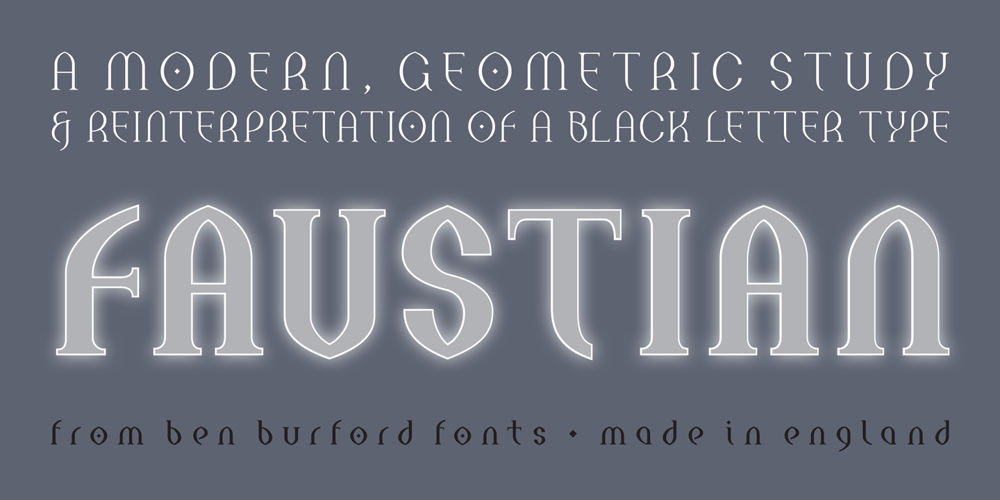
Faustian Font Family was designed by Ben Burford and published by Ben Burford Fonts. Faustian contains 3 styles and family package options. Faustian is a modern study and different take on classic historical black letter styles, geometric in its construction, giving a very modern clean look whilst its historical influences shine through. coming in 3 weights with a host of opentype features including old style figure, alternate characters and more